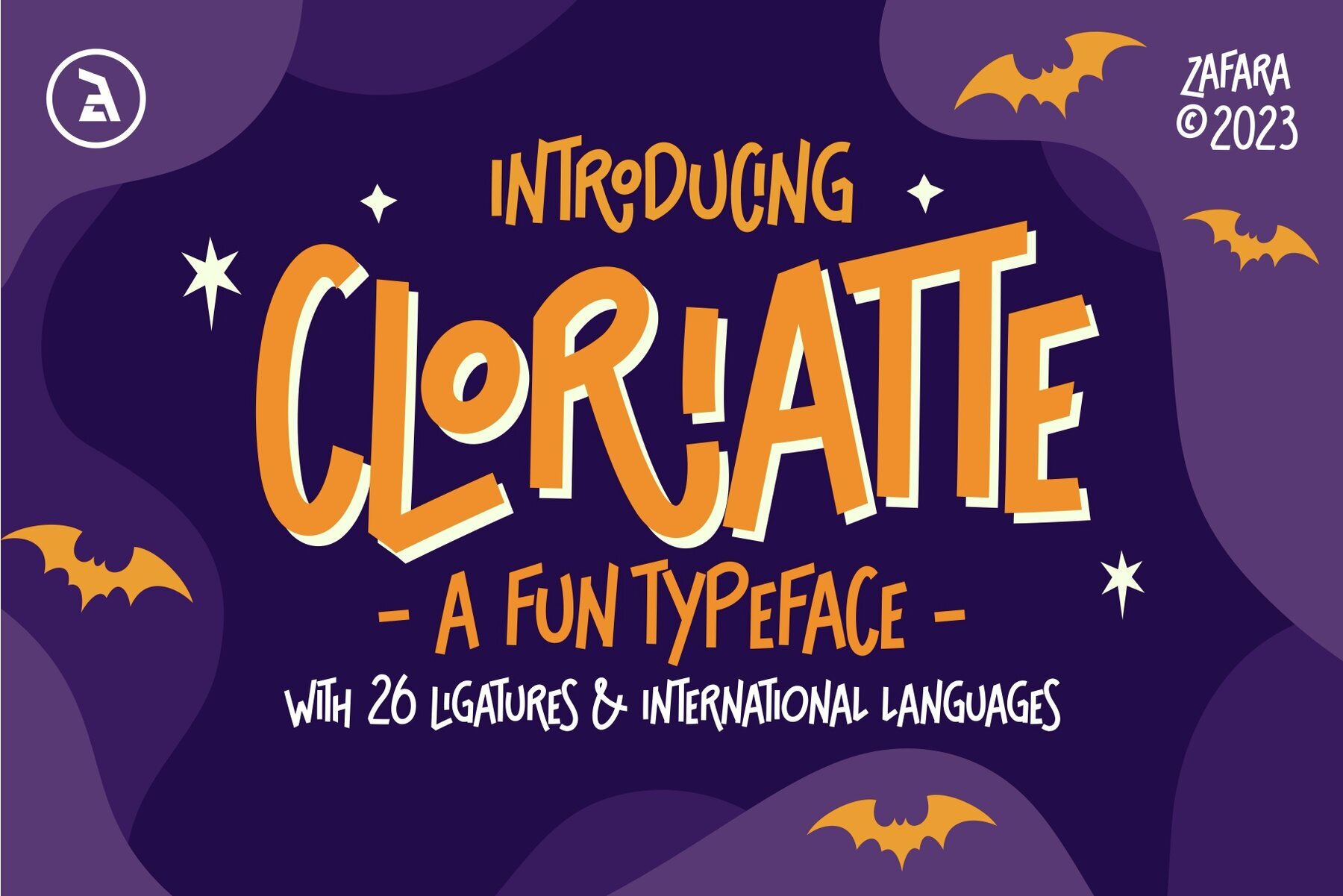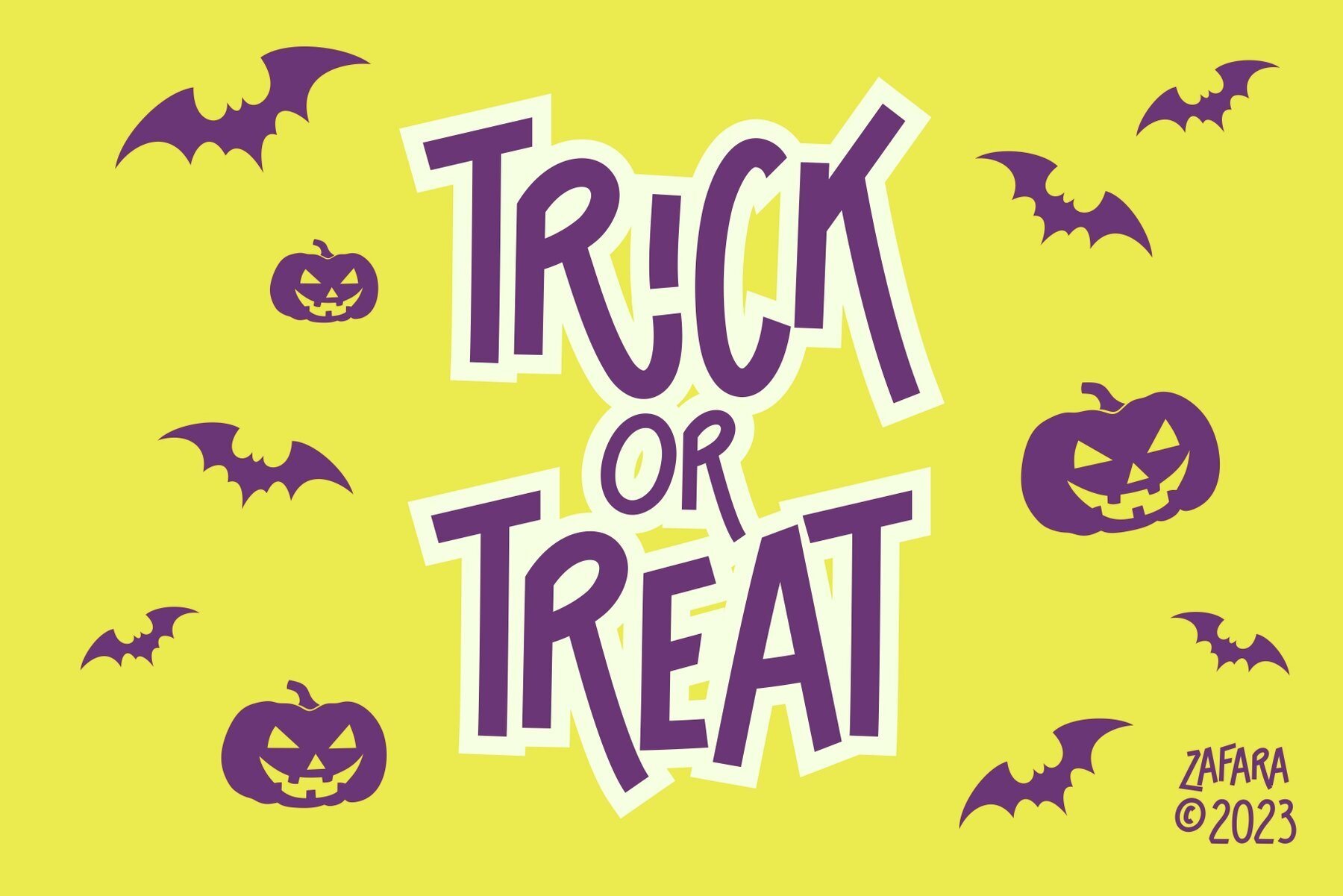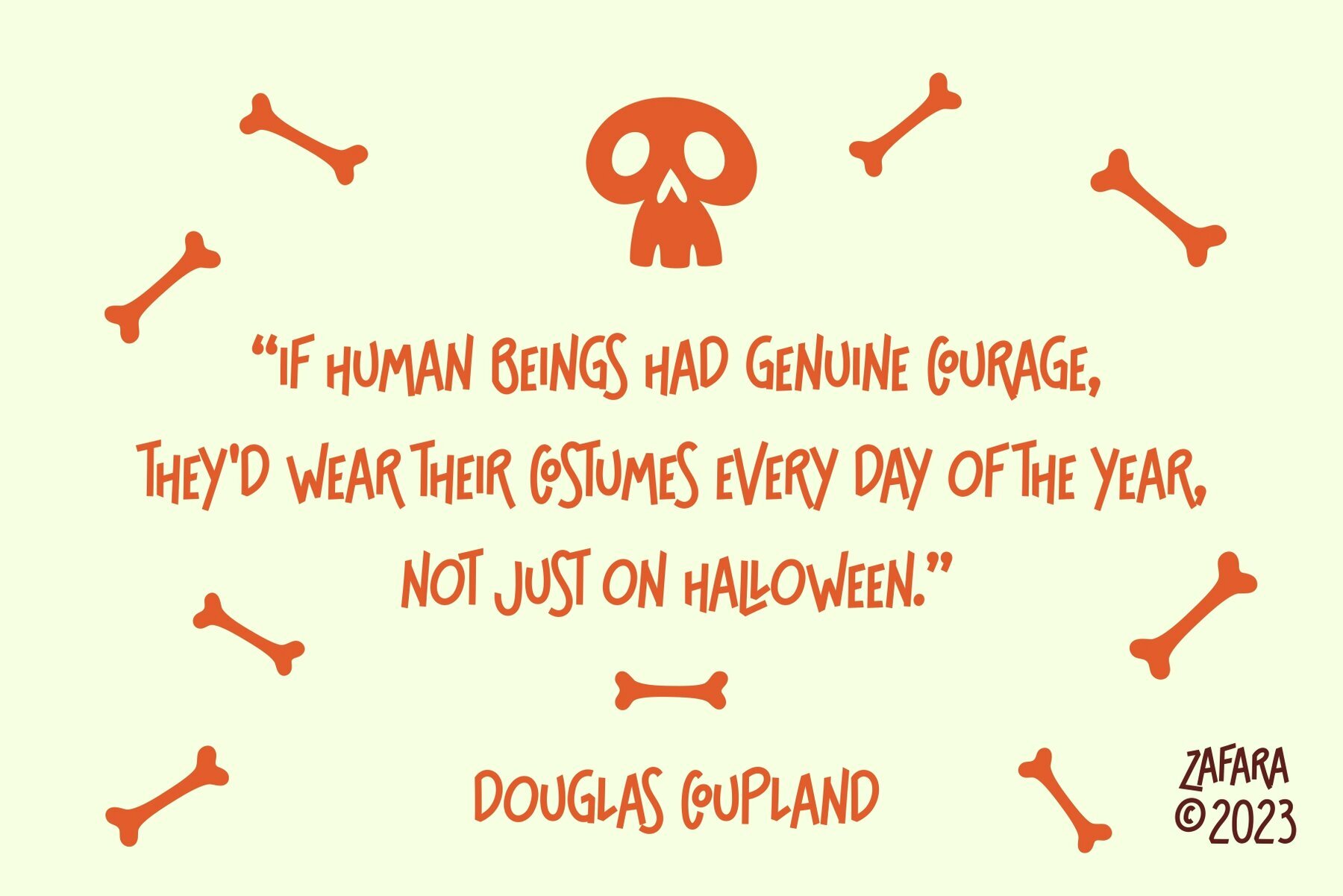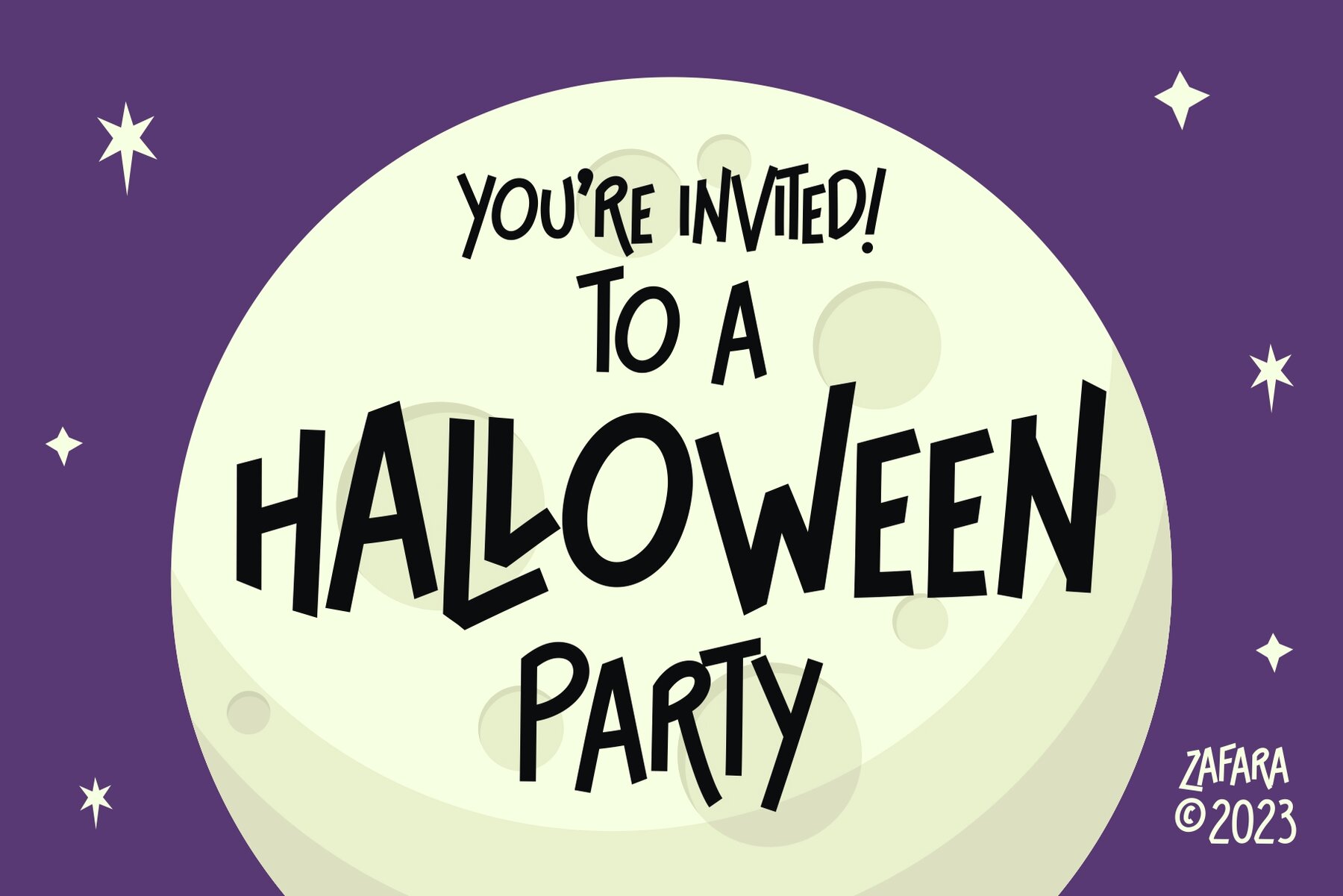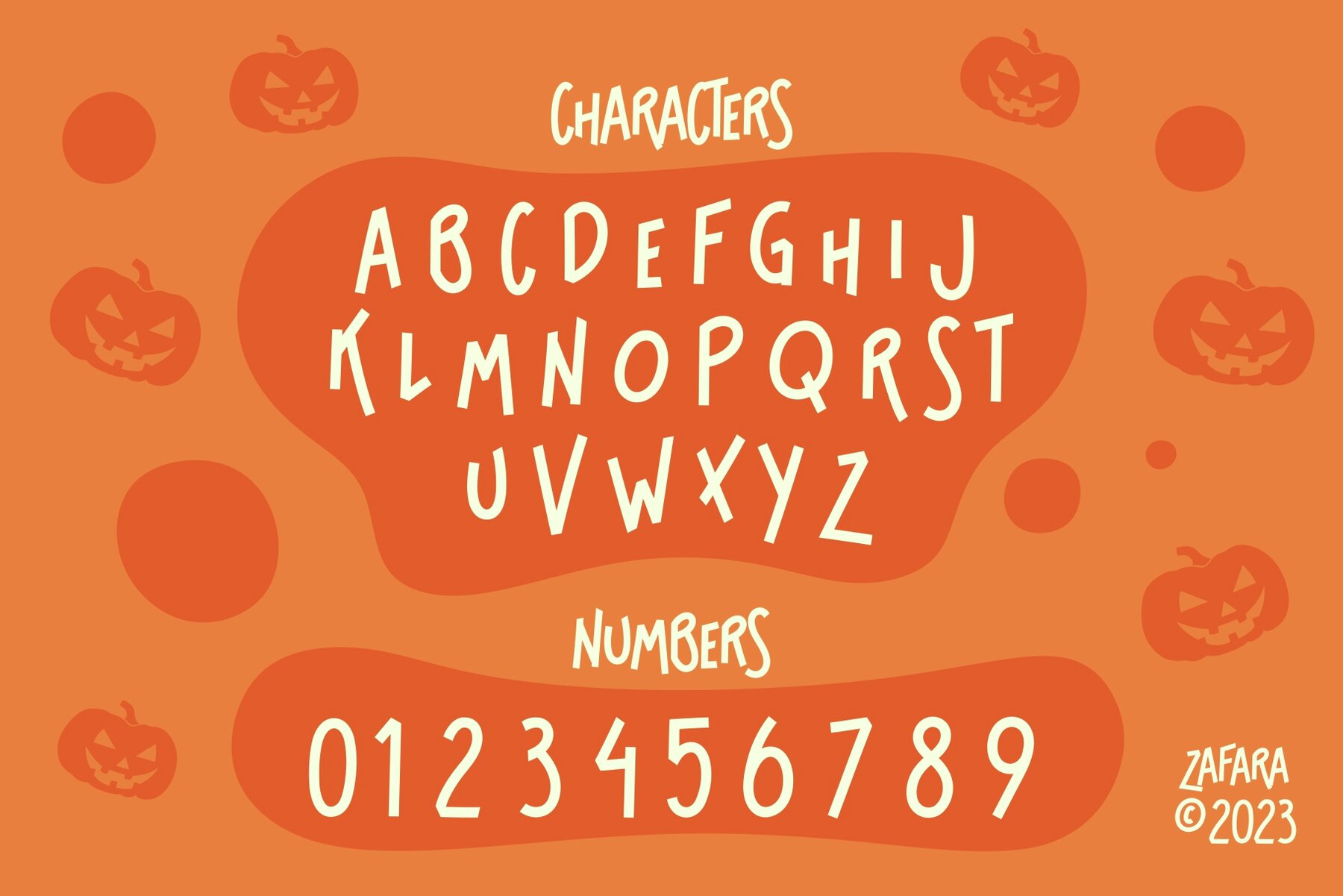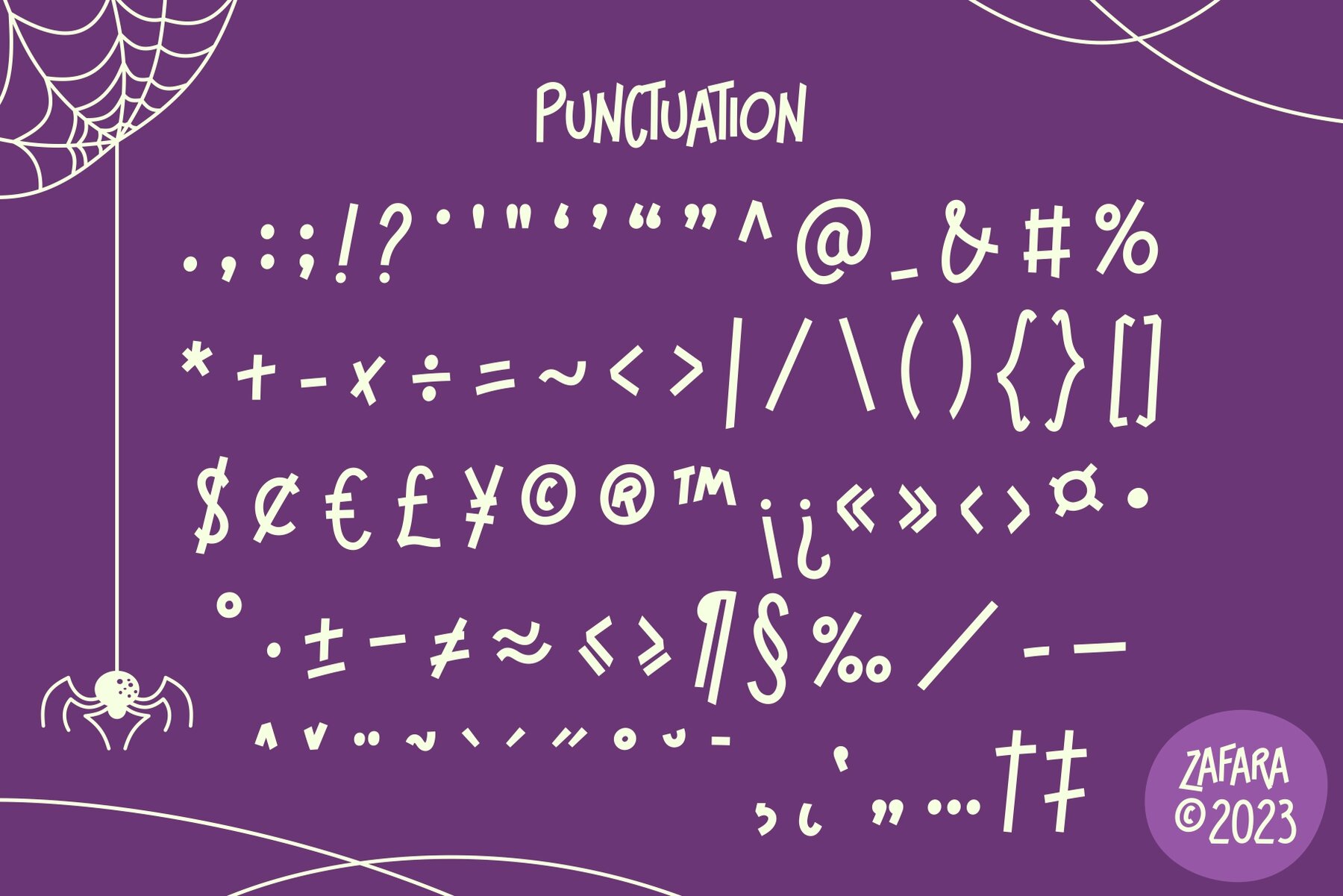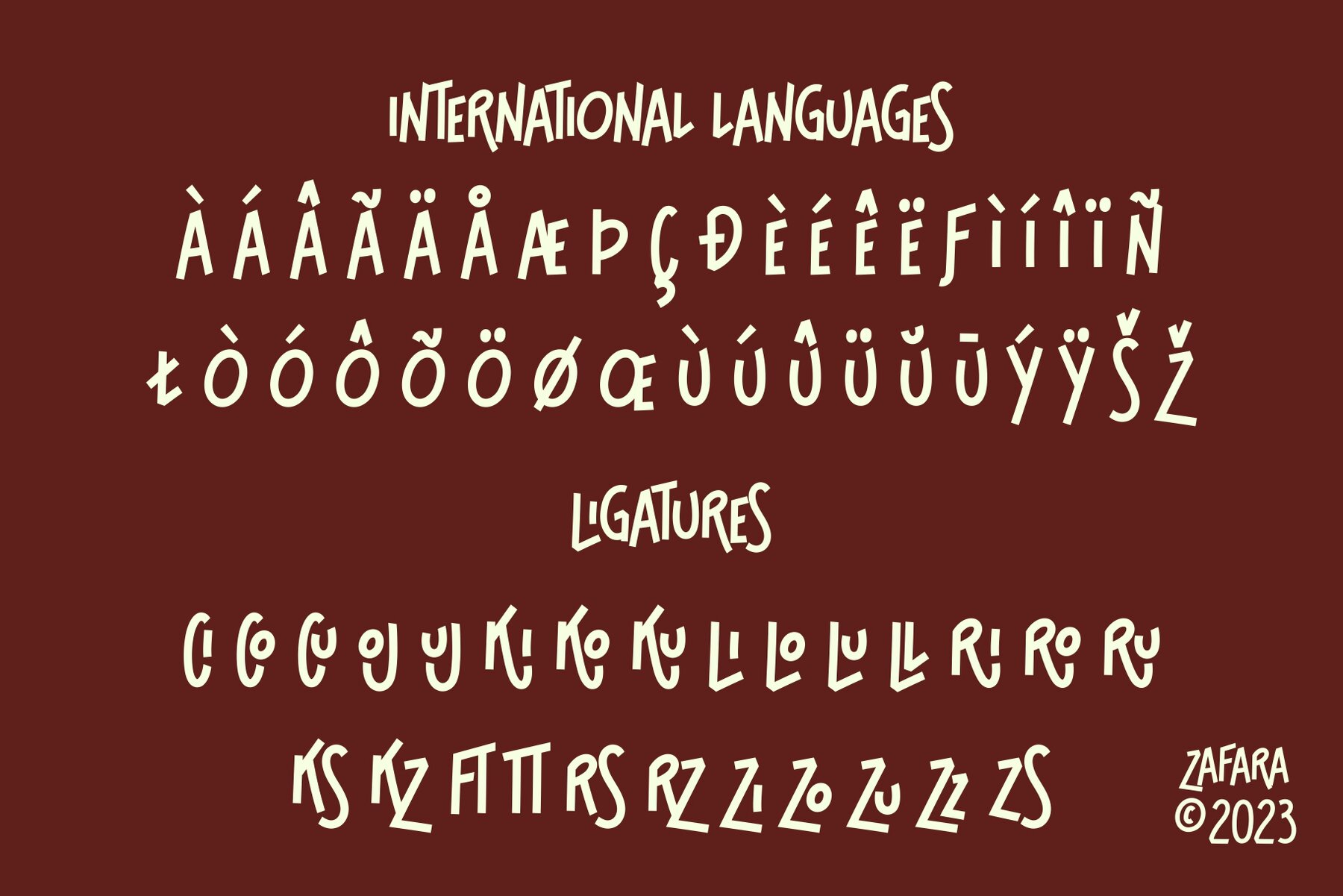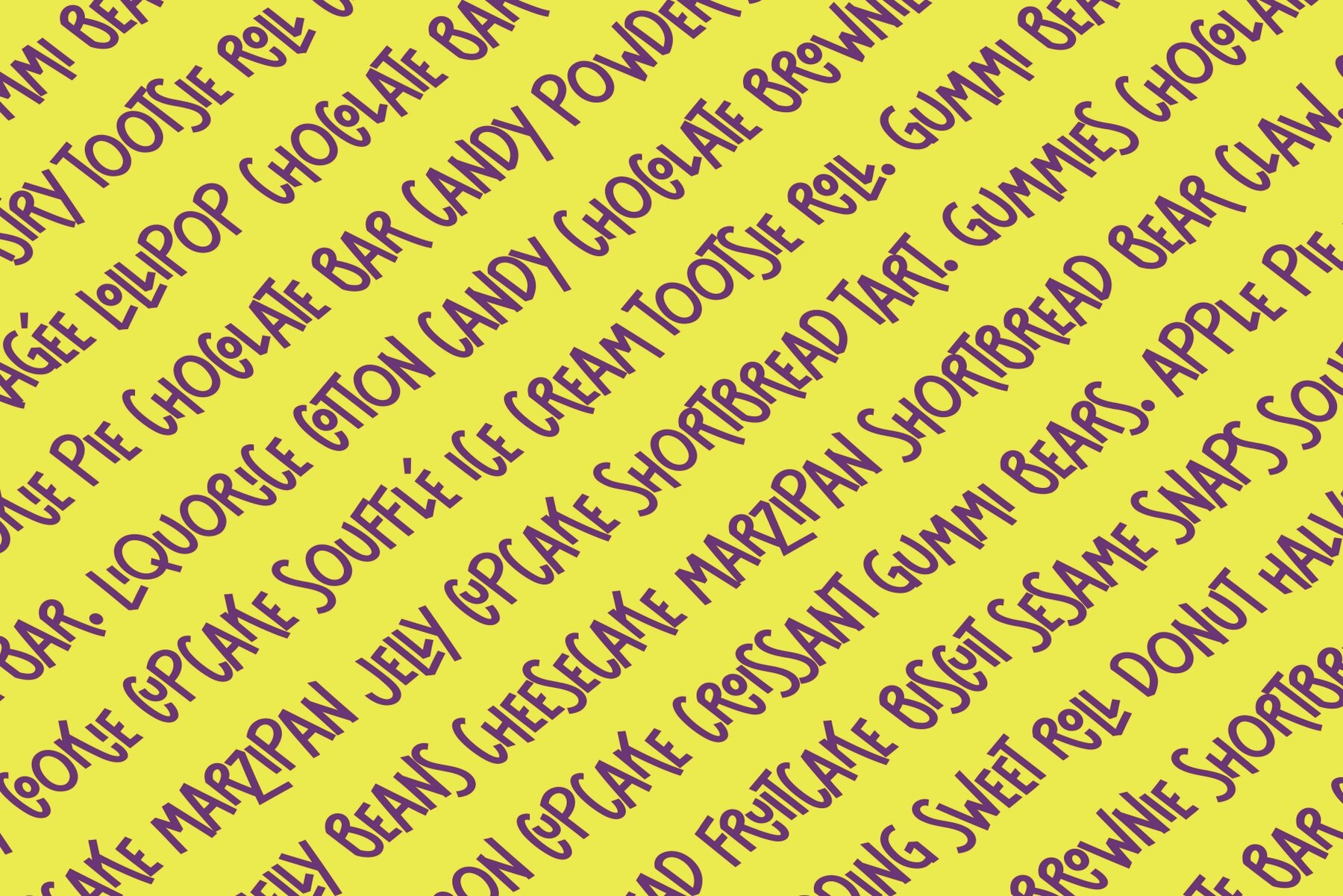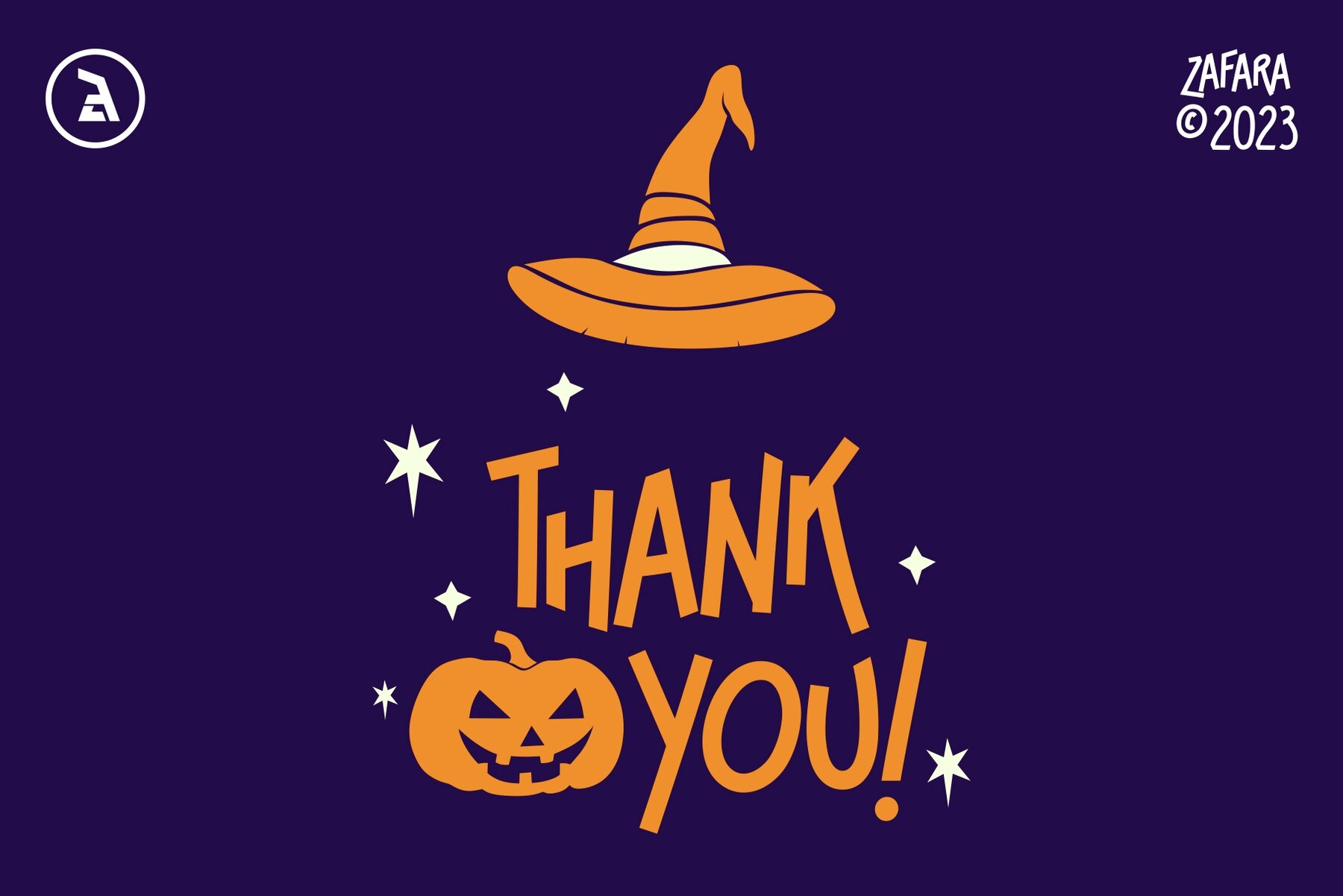
Cloriatte Font
Cloriatte offers a unique blend of boldness and friendliness, making it ideal for various themes ranging from mysterious elements like Halloween and magic to more cheerful applications like children's books and greeting cards. This versatile font can also enhance logotypes and other creative needs based on your design requirements.Cloriatte: Bold Font with a Friendly Touch